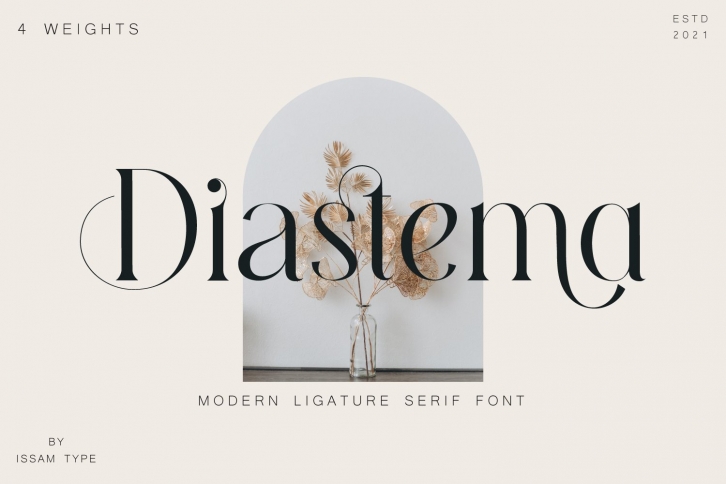
Diastema is a modern ligature serif typeface comes with joining ligatures that give it a fancy and unique style. This font perfect for branding, logos, invitation, watermark and more.
Diastema typeface comes with regular, italic, bold and bold italic font styles. Uppercase & lowercase letters, numbers, punctuation, ligatures, alternates
Multilingual support.